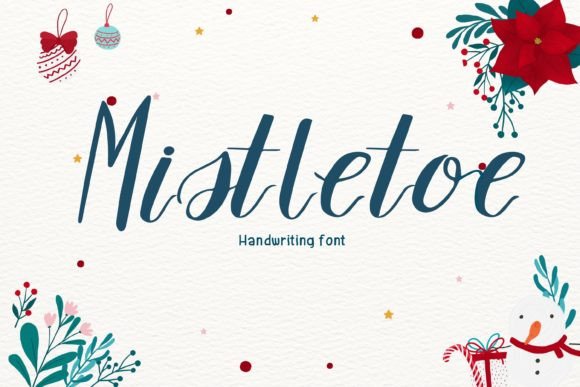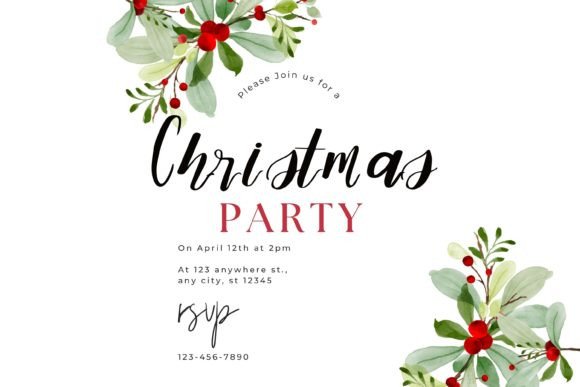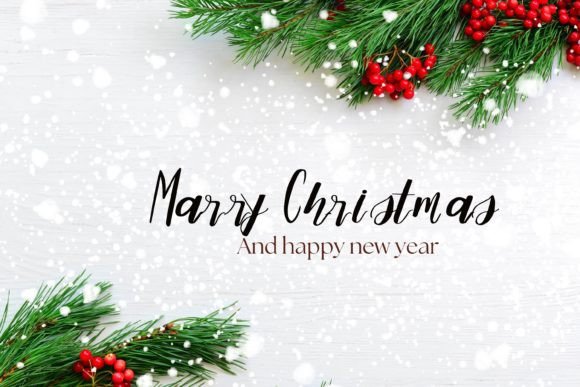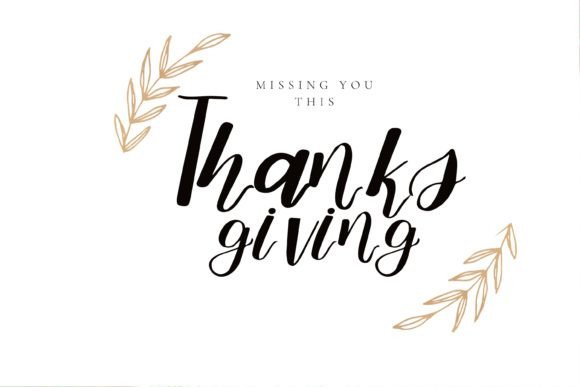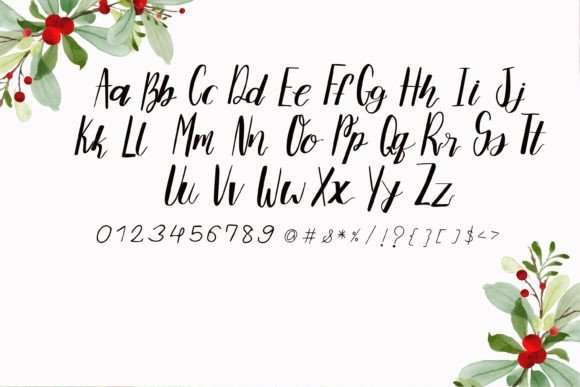
Mistletoe Font
About Mistletoe Font
“Mistletoe” is a basic handwritten font that offers a simple and organic vibe to your creative projects. This adaptable typeface can be used for a variety of applications, from headlines to greeting cards, and it adds a straightforward and natural aesthetic to your designs.
The charm of “Mistletoe” lies in its simplicity and handwritten style. Its basic yet well-designed characters create a visually uncomplicated and organic experience, making it an ideal choice for projects that aim to convey a sense of authenticity and straightforwardness.
One of the standout qualities of “Mistletoe” is its adaptability. Whether you’re using it for headlines to grab attention or adding a personal touch to greeting cards, this font seamlessly integrates into your creative vision.
This font’s dedication to providing a basic and organic look to your projects sets it apart. Whether you’re working on personal or professional endeavors, “Mistletoe” brings a sense of simplicity and authenticity to your work that resonates with a diverse audience.
In summary, “Mistletoe” is more than just a font; it’s an adaptable and versatile creative tool that can enhance your projects with its simple and organic script. Whether you’re a professional designer seeking a font that adds authenticity to your designs or an enthusiast passionate about crafting and design, “Mistletoe” is here to infuse your projects with a straightforward and natural vibe. Embrace the simplicity of “Mistletoe,” and watch your creativity flourish with straightforward and authentic designs.